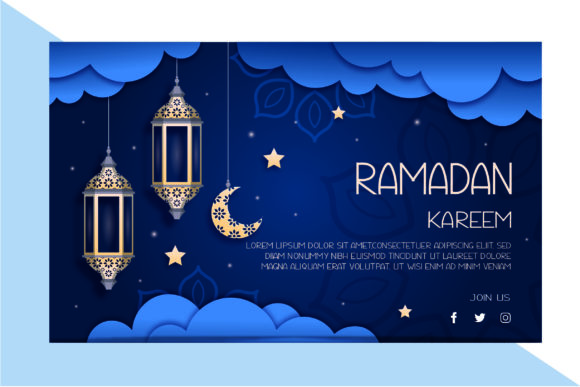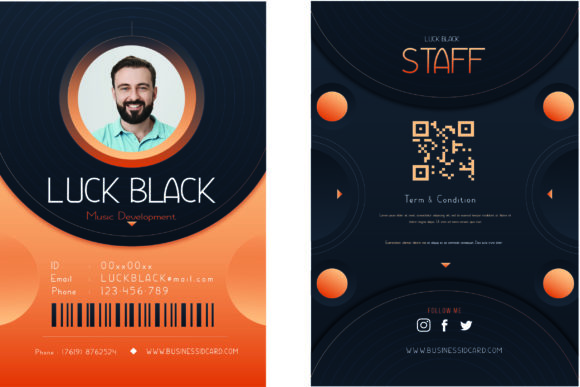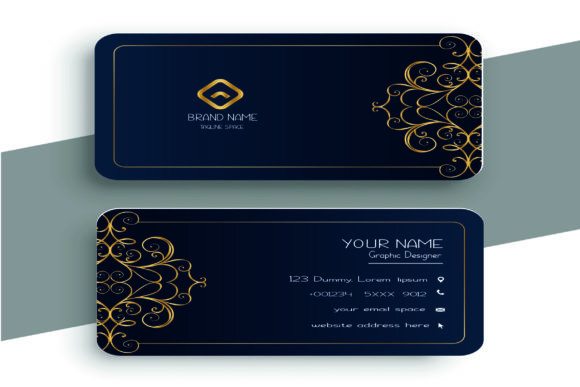
Discover the Unique Charm of Seganggeng Font
Have you ever stumbled upon a font that sparks your creativity and leaves you wondering how you ever managed without it? For designers, finding that perfect font can be a game-changer. It’s the moment when a concept comes together, and the words on the page start to shine. This is exactly what happens when you lay your eyes on the Seganggeng Font.
This simple yet elegant font is a treasure trove of possibilities, waiting to elevate your next creative project to new heights. With its natural and unique style, Seganggeng Font is the perfect design resource for any project, from elegant invitations to striking social media graphics. Whether you’re a seasoned pro or just starting out, this high-quality font is sure to inspire your next design.
Key Features of Seganggeng Font
- High-quality design resource ideal for creative projects requiring a unique aesthetic.
- Unique and stylized characters, perfect for adding a creative touch to design projects.
Honest Review: Seganggeng Font
As a designer, I’m always on the lookout for unique and high-quality design resources. I recently came across the Seganggeng Font, and I’m excited to share my honest review with you.
- ✨ High-quality design: The Seganggeng Font is a beautifully crafted font with a unique and stylish design.
- ✨ Transparent background: The font’s transparent background makes it perfect for use on various backgrounds and designs.
- ⚠️ Limited character set: The Seganggeng Font has a relatively small character set, which may not be suitable for designers who need a font with a wide range of characters.
- ⚠️ Limited language support: The font may not support all languages, which could be a limitation for designers working on international projects.
Overall, I’m impressed with the Seganggeng Font, and I think it’s a great addition to any designer’s toolkit. While it has its limitations, it’s a high-quality font that’s perfect for creative projects that require a unique and stylish design.
Use the Seganggeng Font in conjunction with other design elements, such as images and graphics, to create a visually appealing design. Experiment with different font sizes and styles to add depth and interest to your design. The Seganggeng Font is a great resource for designers who want to add a unique touch to their creative project.
The Seganggeng Font is commonly used for designing logos, brochures, and social media graphics. It’s also a great choice for creating presentations and reports in PowerPoint or Word. The high quality and transparent background of the Seganggeng Font make it a versatile design resource for a variety of projects.
Alternatives to Seganggeng Font